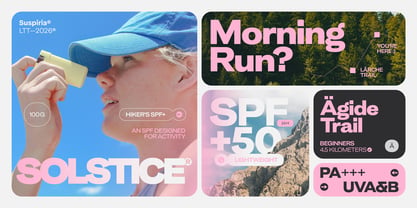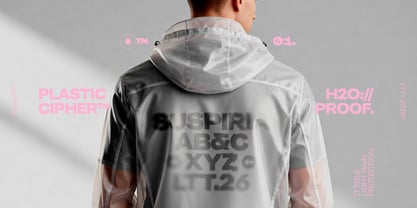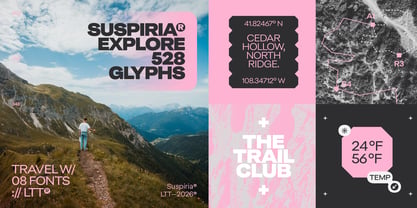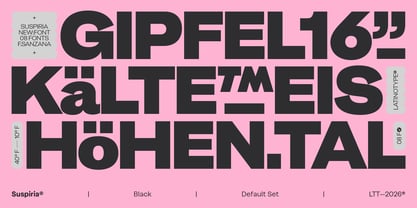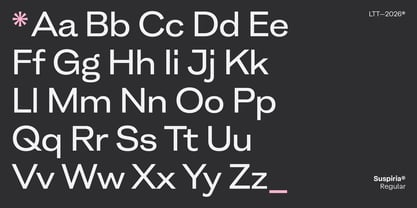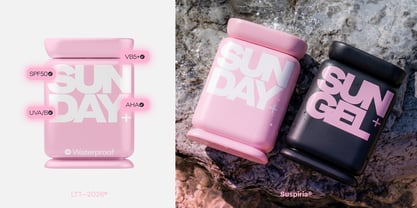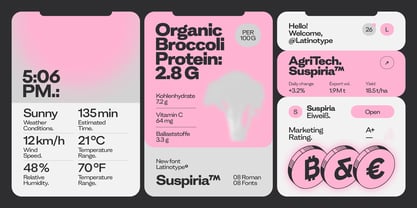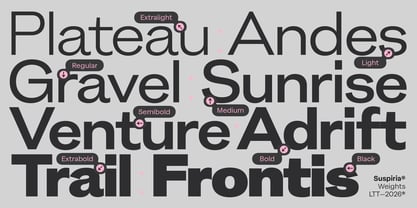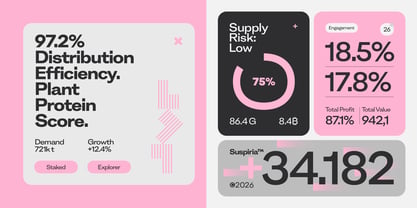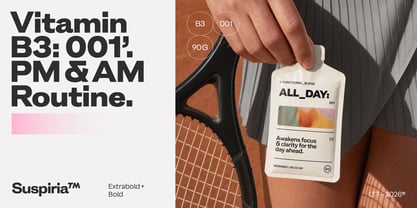
Suspiria
by Latinotype
The Suspiria Font Family was designed by Felipe Sanzana, Latinotype Team and published by Latinotype. Suspiria contains 8 styles and family package options.
Suspiria is a grotesque sans serif with rounded terminals and a subtle flare, marked angles, and tense diagonals that give its silhouette a firm, deliberate pulse. Uppercase letters with a high optical center and robust, wide lowercase forms resolved with craft by the Latinotype team. The Black weight pushes to the limit: some terminals touch and spacing tightens to build dense, solid, visually powerful blocks.
Like the early grotesques that pushed their forms to the extreme, Suspiria rejects neutrality and embraces tension, betting on recognition over uniformity and character over conformity. Its construction is direct and uncompromising — not a typeface that blends into a system, but one that defines it.
With eight weights from ExtraLight to Black and 530 glyphs including an arrow set, Suspiria is built for headlines, identities, and graphic systems that don't need explanation.
Character over conformity.